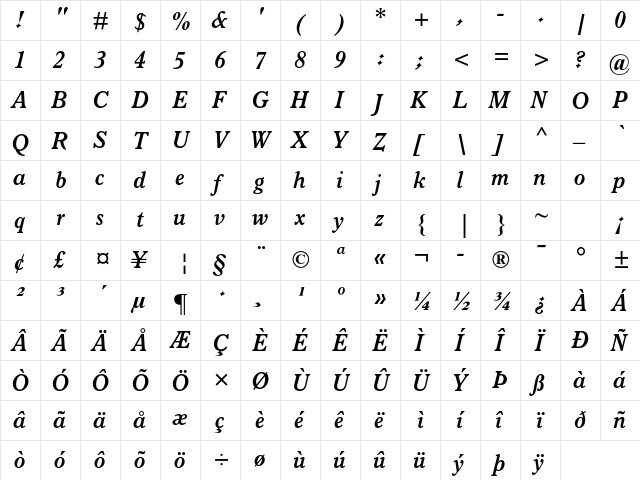
Italian Old Style MT Std Bold Italic Font Preview
Design Context for Italian Old Style MT Std Typeface
Italian Old Style MT Std takes a measured approach to typography — its balanced proportions and neutral character make it a reliable workhorse for both digital and print work. The dynamic lean of this cut emphasises speed and emphasis in any layout. Its bold stroke weight gives it real presence on the page.
Pro Tip: Use Italian Old Style MT Std for emphasis, pull quotes, and subheadings where its slanted energy can add rhythm to the layout.